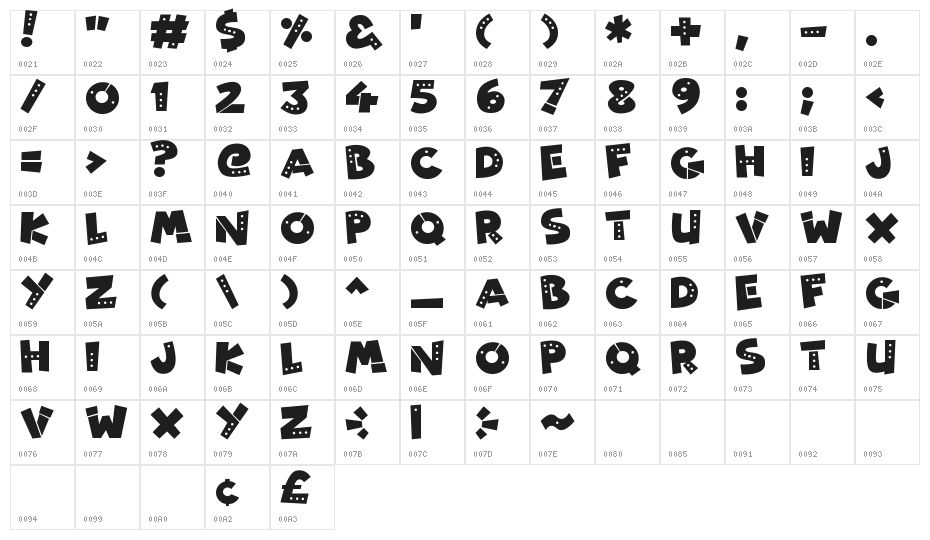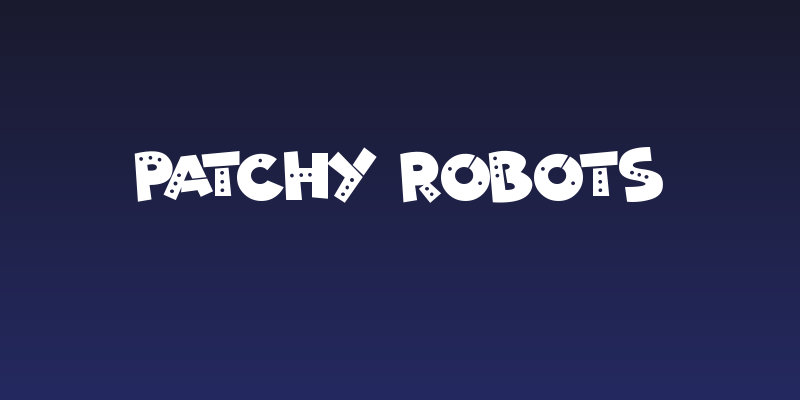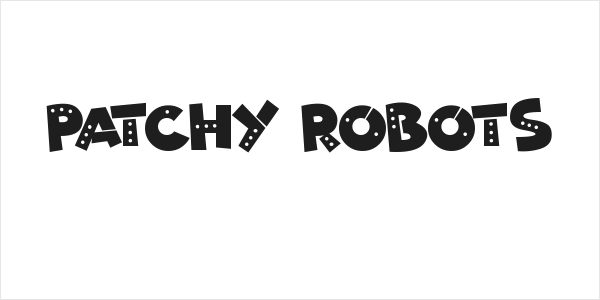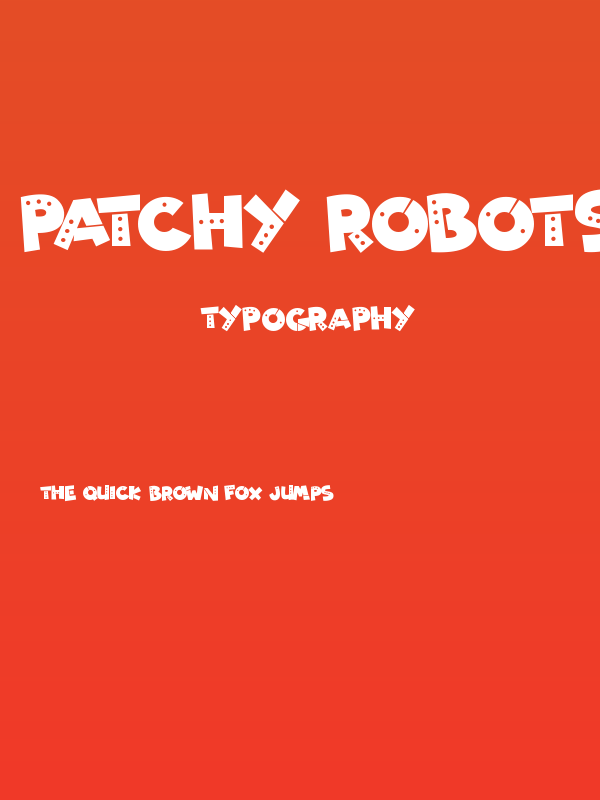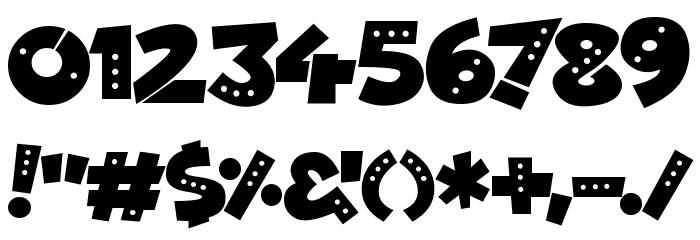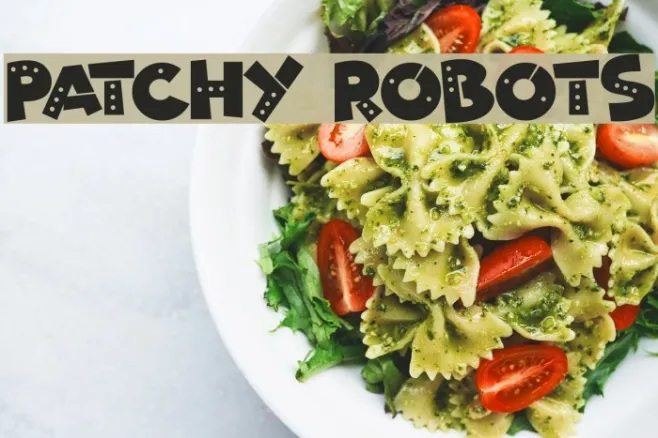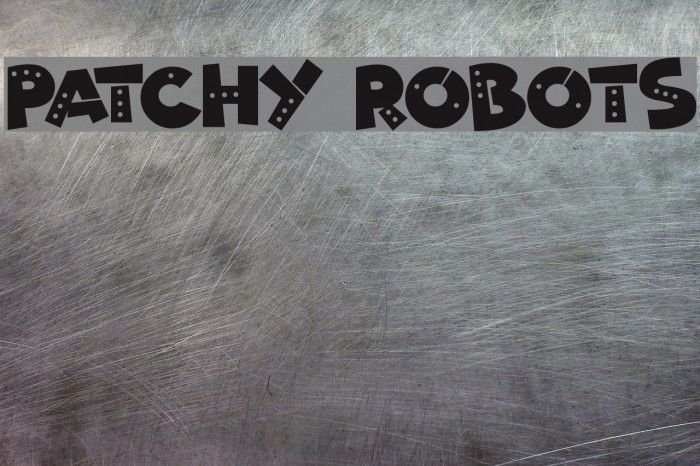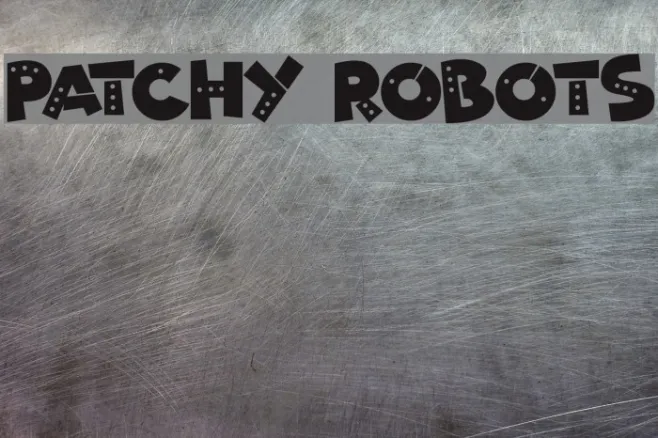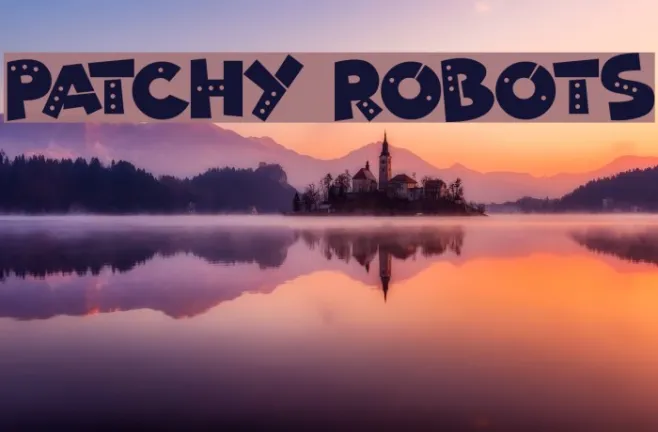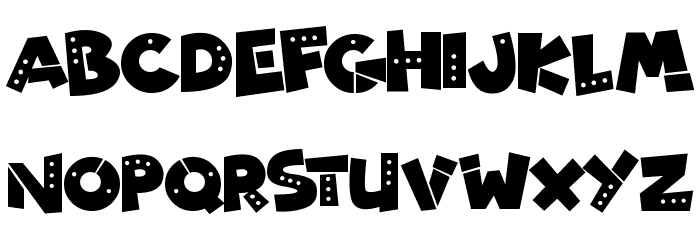
Patchy Robots Font
Patchy Robots Description
This font features a playful and bold design with a unique patchwork style. Each character is adorned with circular cutouts and irregular shapes, giving it a whimsical and robotic appearance. The letters are thick and chunky, creating a strong visual impact. The font's quirky and unconventional style makes it stand out, with each character having its own distinct personality. The use of geometric shapes and bold lines adds to its modern and creative feel, making it perfect for projects that require a fun and eye-catching typeface.
| Proposed Projects | Ideal for children's books, toy packaging, video game titles, and playful branding. |